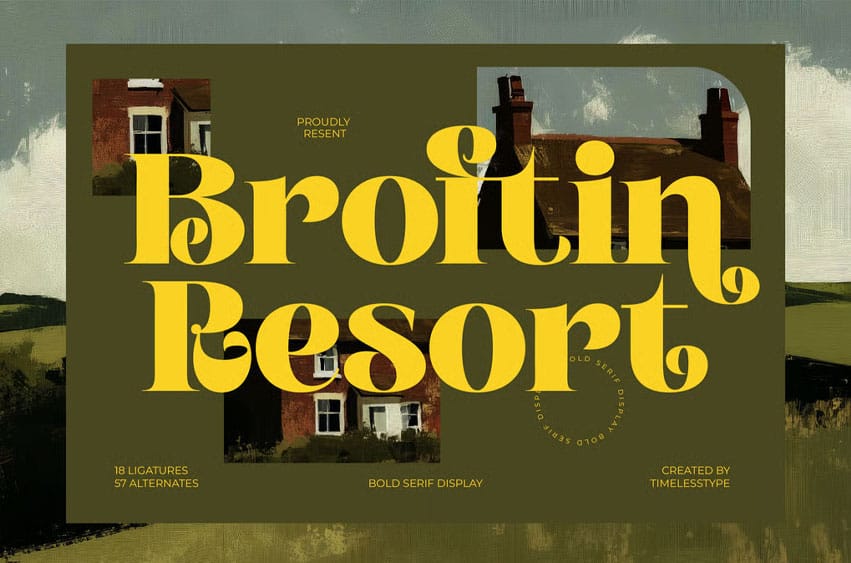
Broftin Resort Font Bold Serif Display, Broftin Resort is a bold serif display font with a refined, high-contrast style that blends vintage elegance with modern artistic flair. Its sculpted curves, expressive terminals, and confident letterforms make it ideal for branding that needs strong visual presence.
Featuring 18 ligatures and 57 alternates, this typeface gives designers the freedom to craft unique titles, editorial layouts, boutique branding, luxury product packaging, and standout posters with a timeless yet contemporary feel. Perfect for projects inspired by rustic retreats, nature aesthetics, or bold modern identity work.
Broftin Resort Font Preview